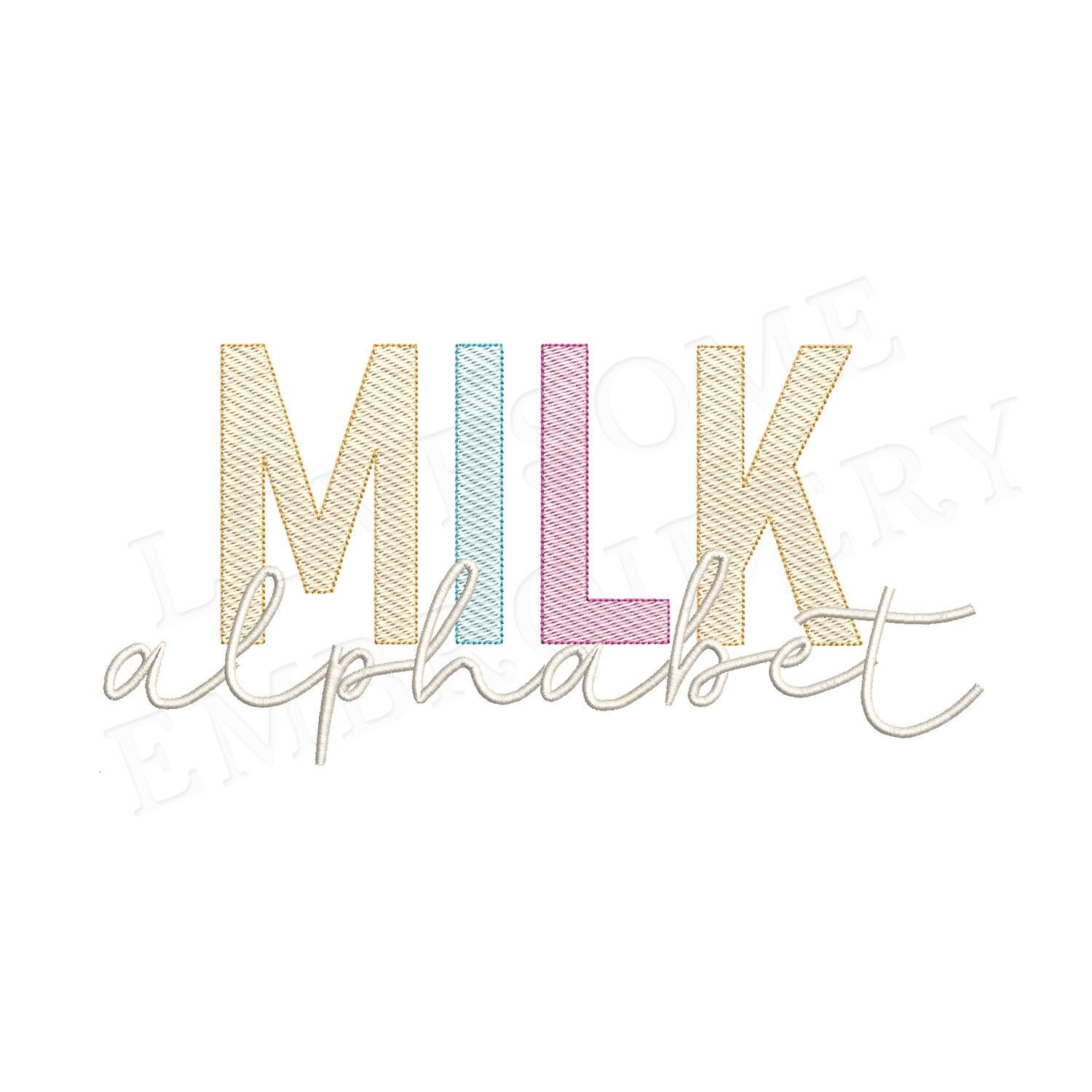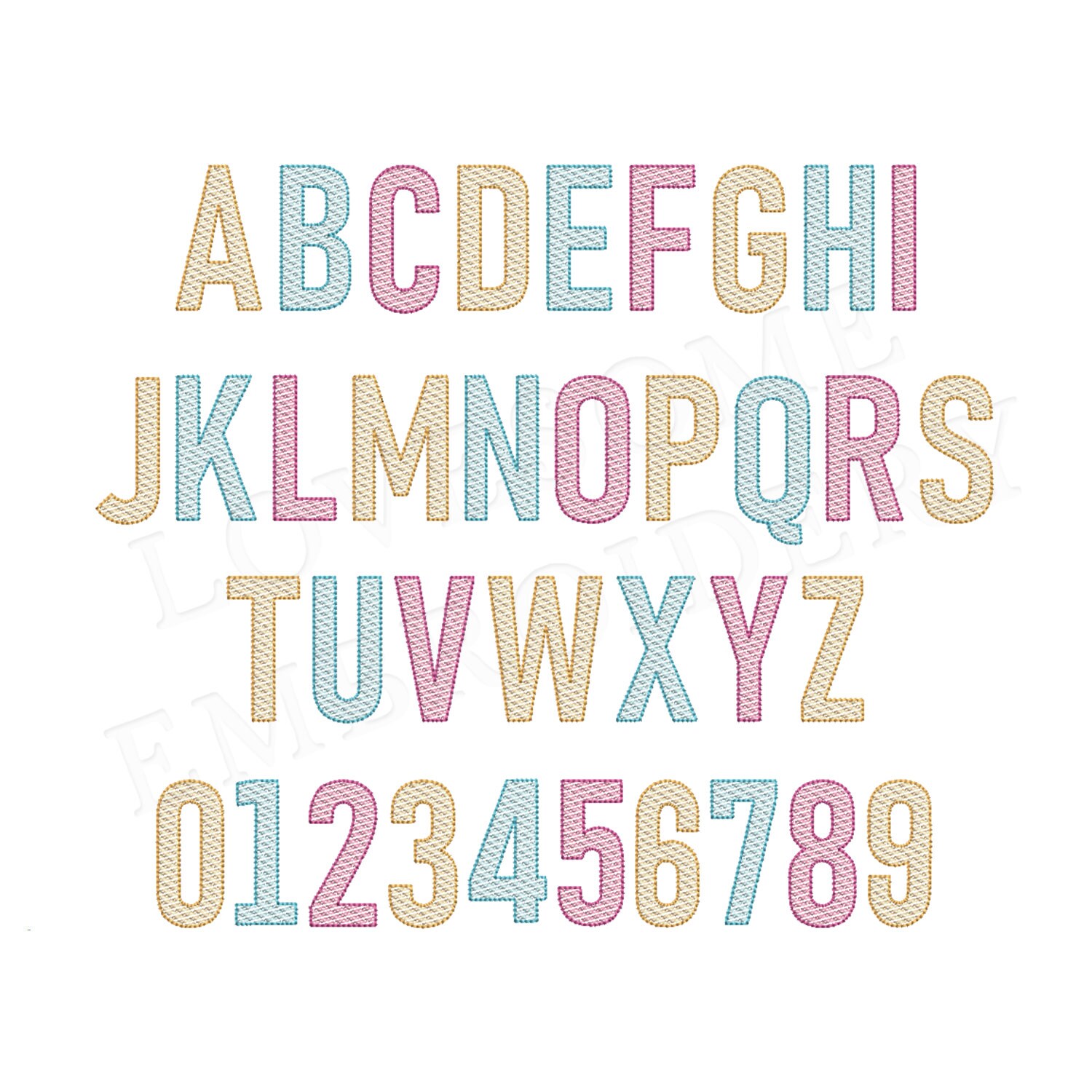
Milk Quick Stitch 2inch Monogram BX Font A-Z Machine Embroidery Font Digital Download | Lovesome Design
This listing features a machine embroidery font set which includes quick stitch (aka sketch fill) embroidery files of 26 uppercase letters A-Z and numbers 0-9 in 2inch size. (For the whole set, pls see the listing images.)